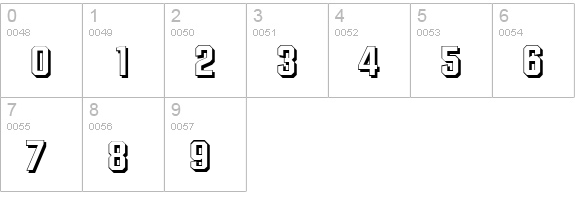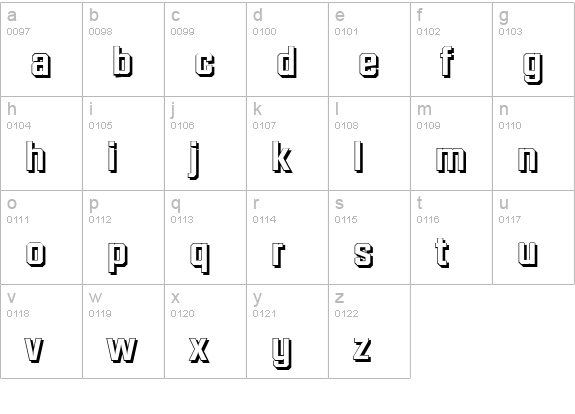
DiamanteShadow-Bold Font Details
DiamanteShadow-Bold is a strong, high-contrast variant in the DiamanteShadow typeface family \xE2\x80\x94 well suited to headlines, attention-grabbing titles, and strong calls-to-action.
DiamanteShadow-Bold font is a striking and bold typeface that exudes elegance and sophistication. Its intricate design features sharp edges and intricate shadows that make it perfect for adding a touch of drama to your designs. The font commands attention and is ideal for headlines, logos, and other display purposes. But the best part? DiamanteShadow-Bold font is completely free to download at FontsMarket.com! That's right, you can enhance your projects with this stunning font without spending a dime. Don't miss out on the opportunity to elevate your designs with the eye-catching DiamanteShadow-Bold font – download it today and unleash your creativity!